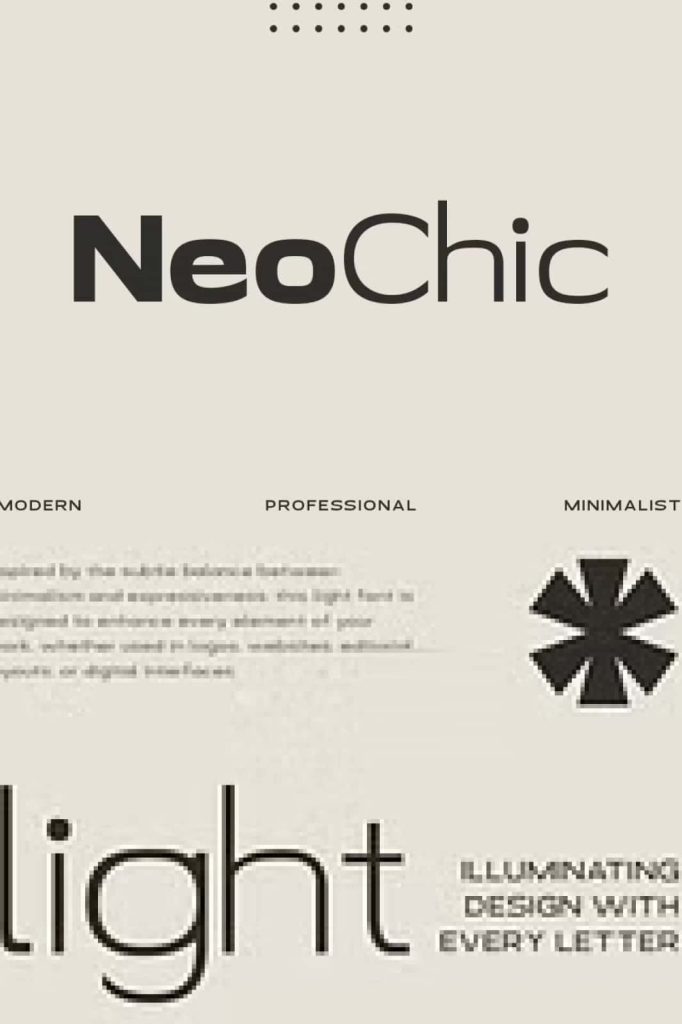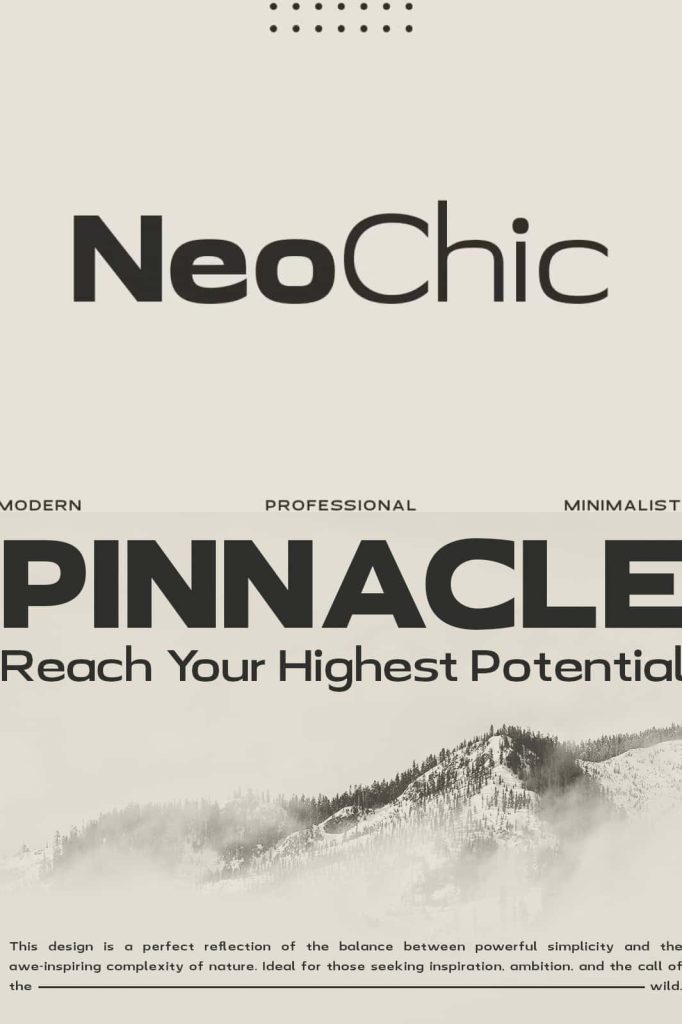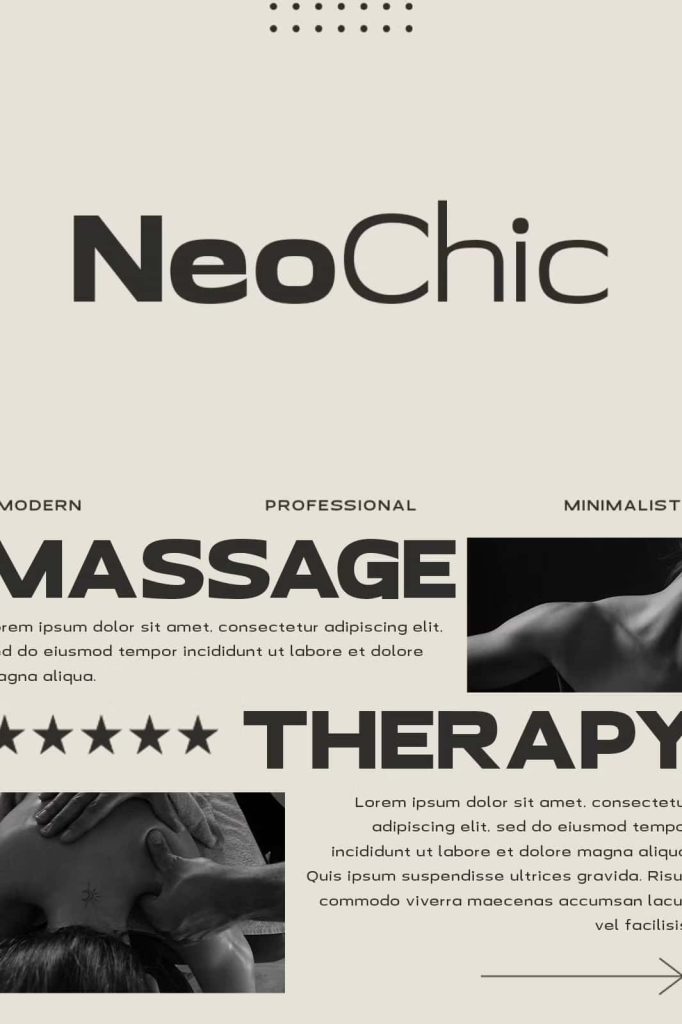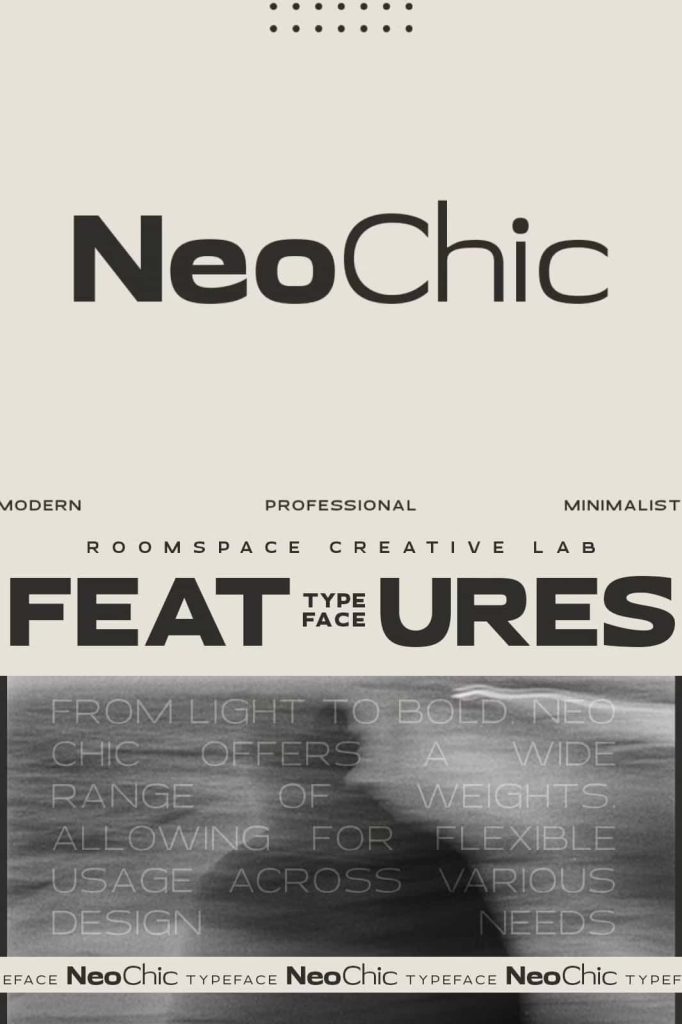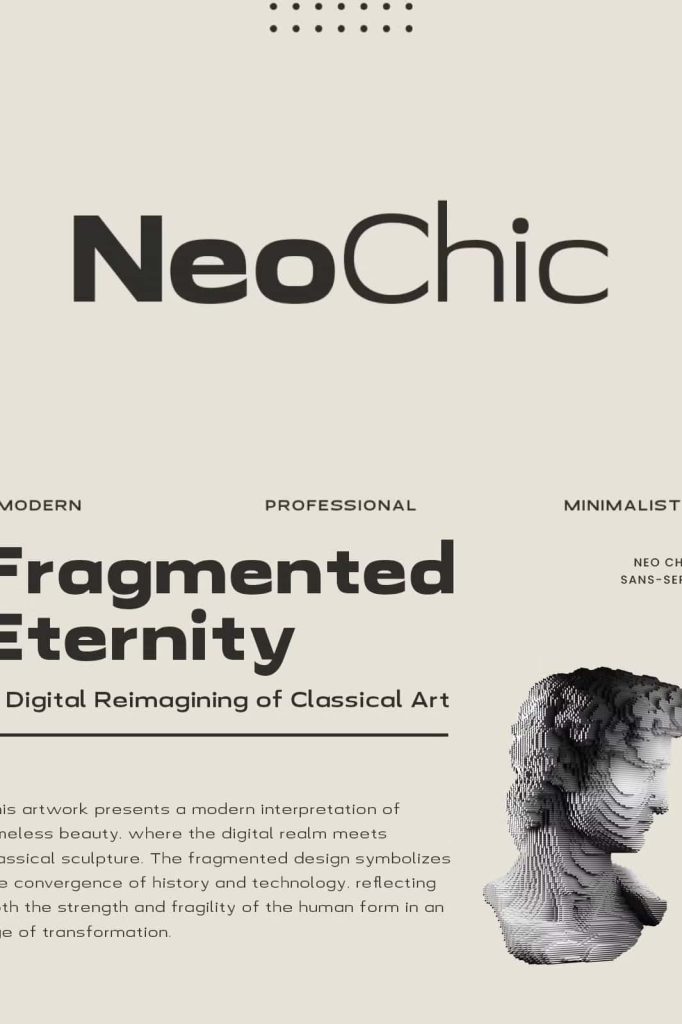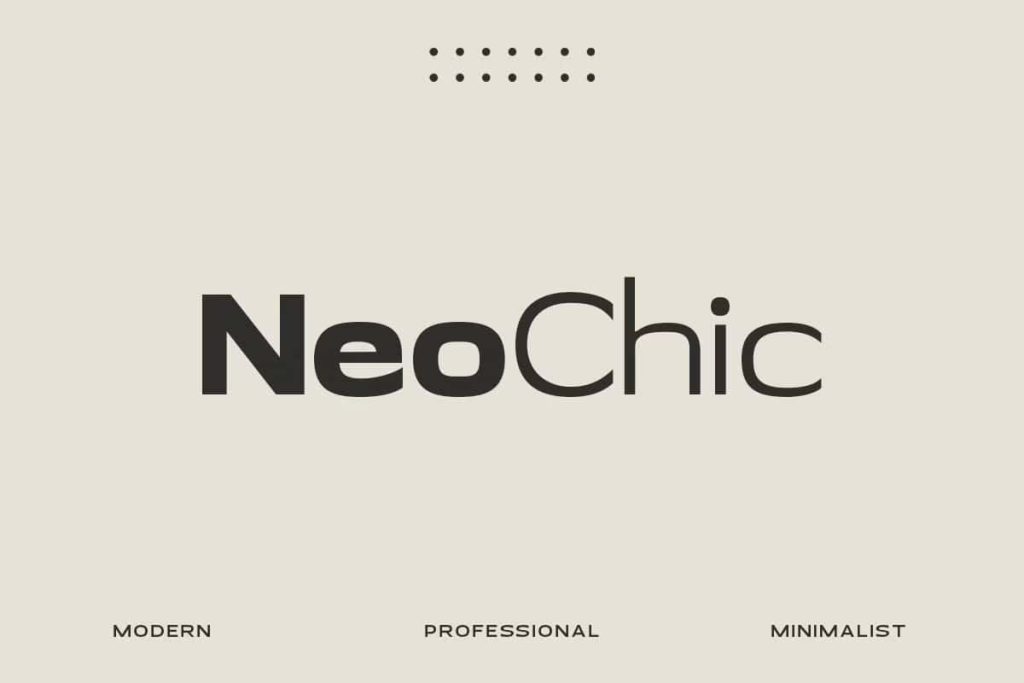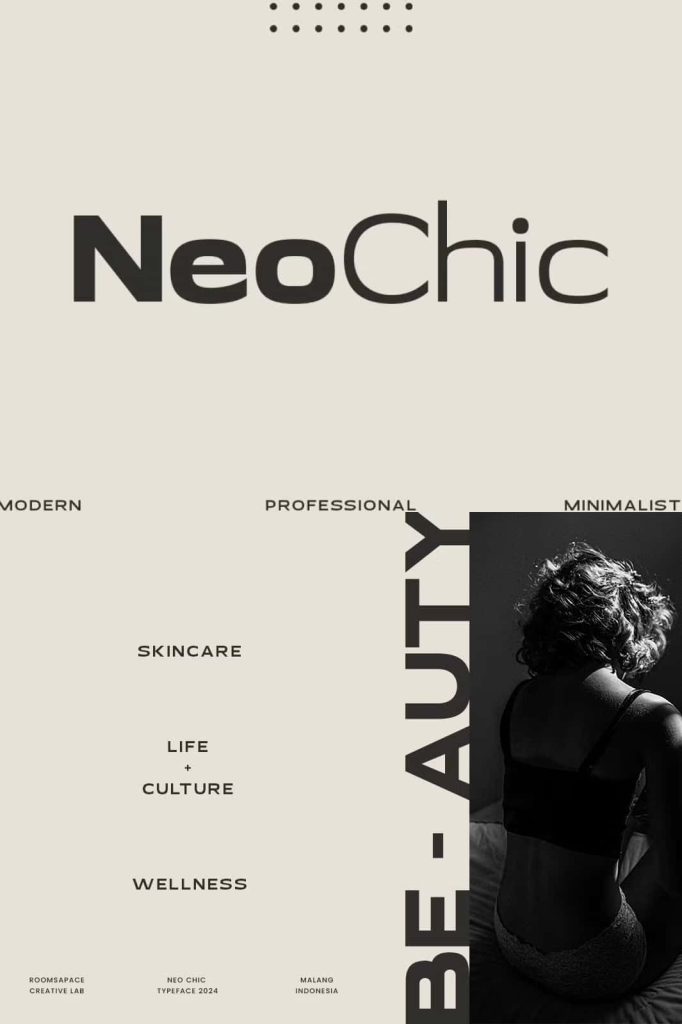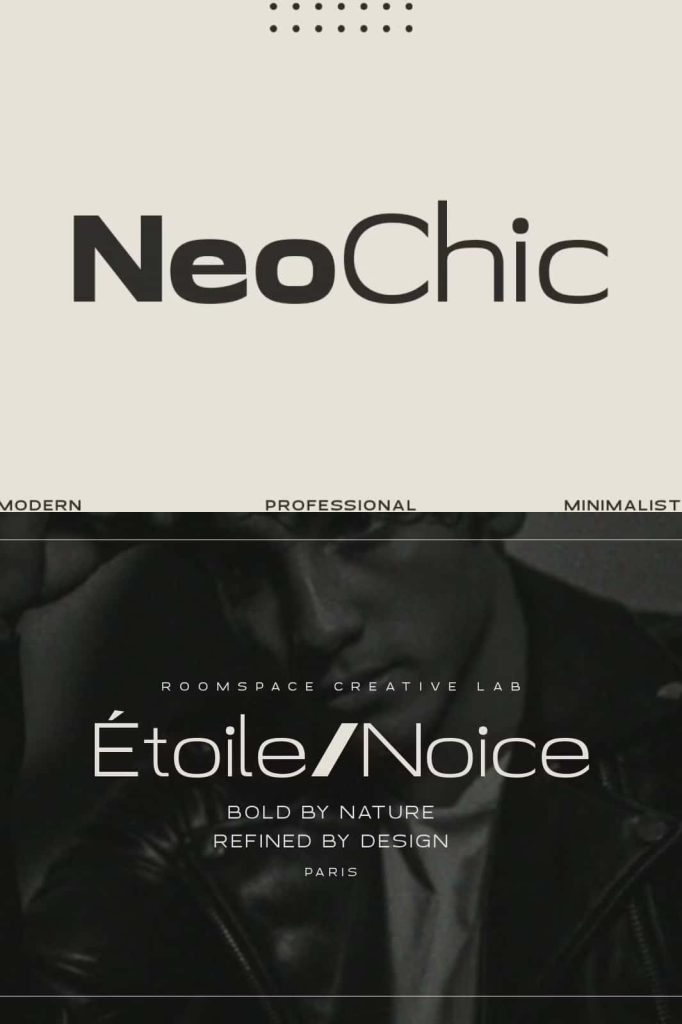
Neo Chic is a modern sans serif font designed to bring a professional and minimalist touch to any design project. With 7 different weights, this font offers versatility for a wide range of applications such as branding, logos, websites, posters, and more